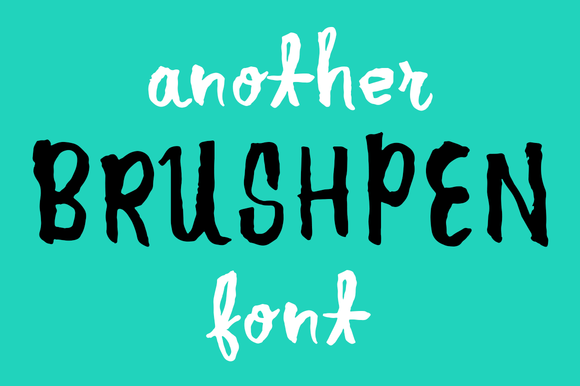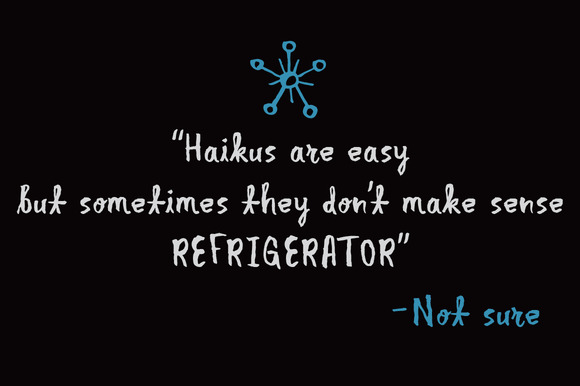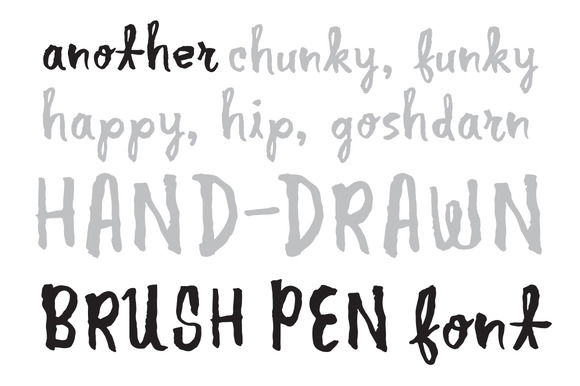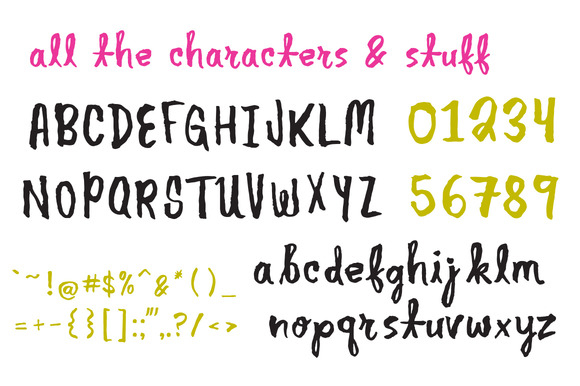
What? A $2 font? A fun hand-drawn brush pen font with just enough wonkyness and a ton of personality? TWO DOLLARS? This font looks great in all caps! All included glyphs are in the included preview image. Includes all the basic characters, and most common English symbols. For use in any commercial and personal works. Comes in .TTF, Font-Face Webfonts (EOT, WOFF, TTF, & SVG ) files.